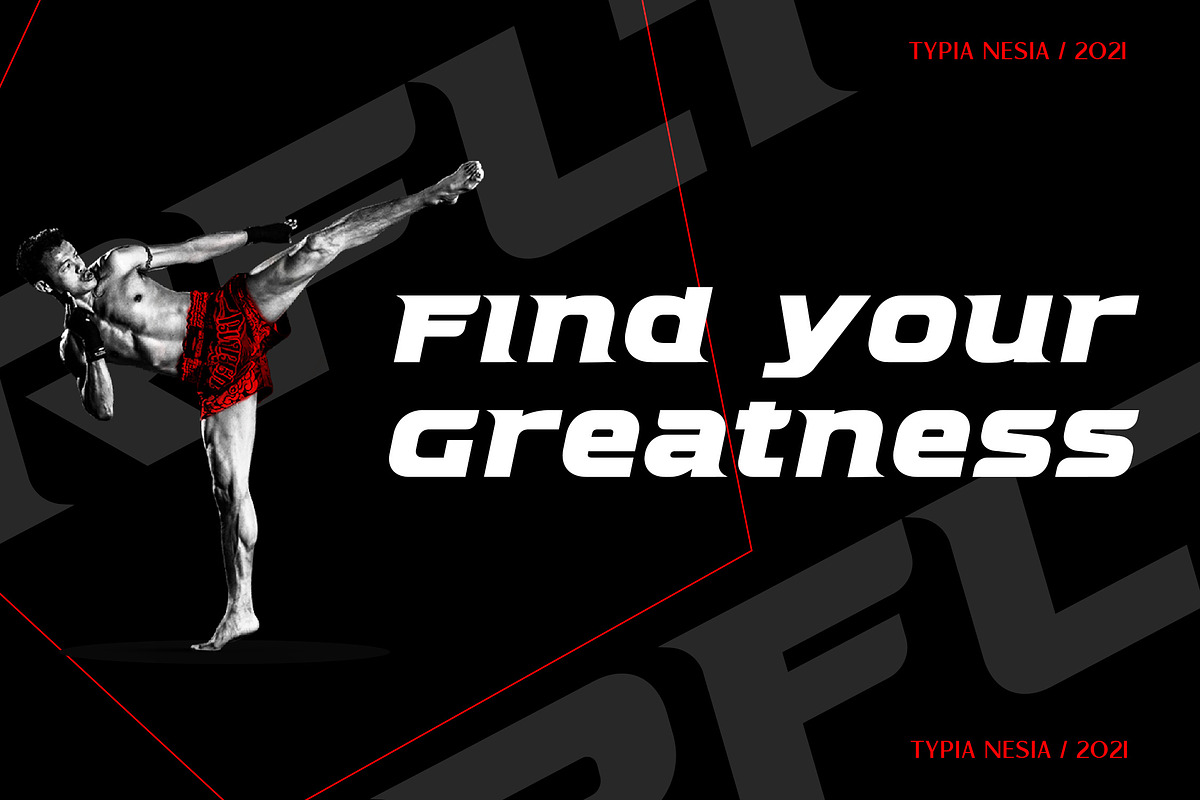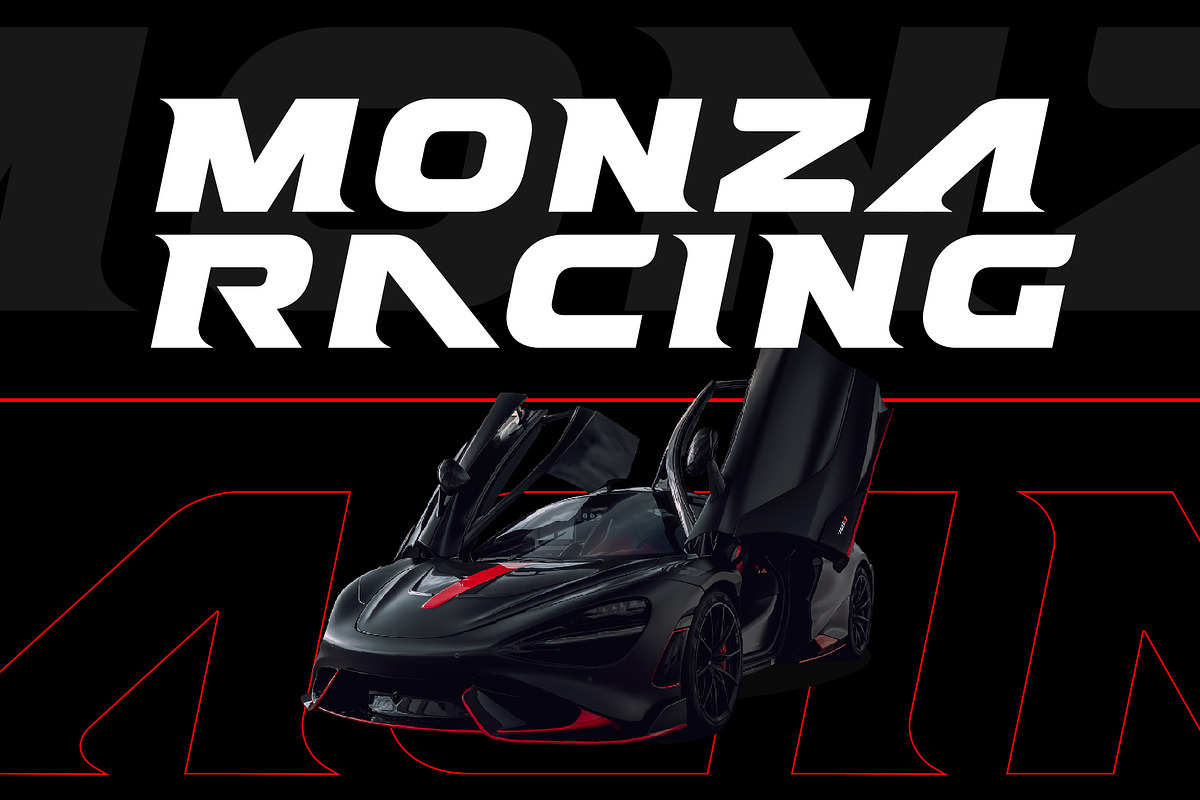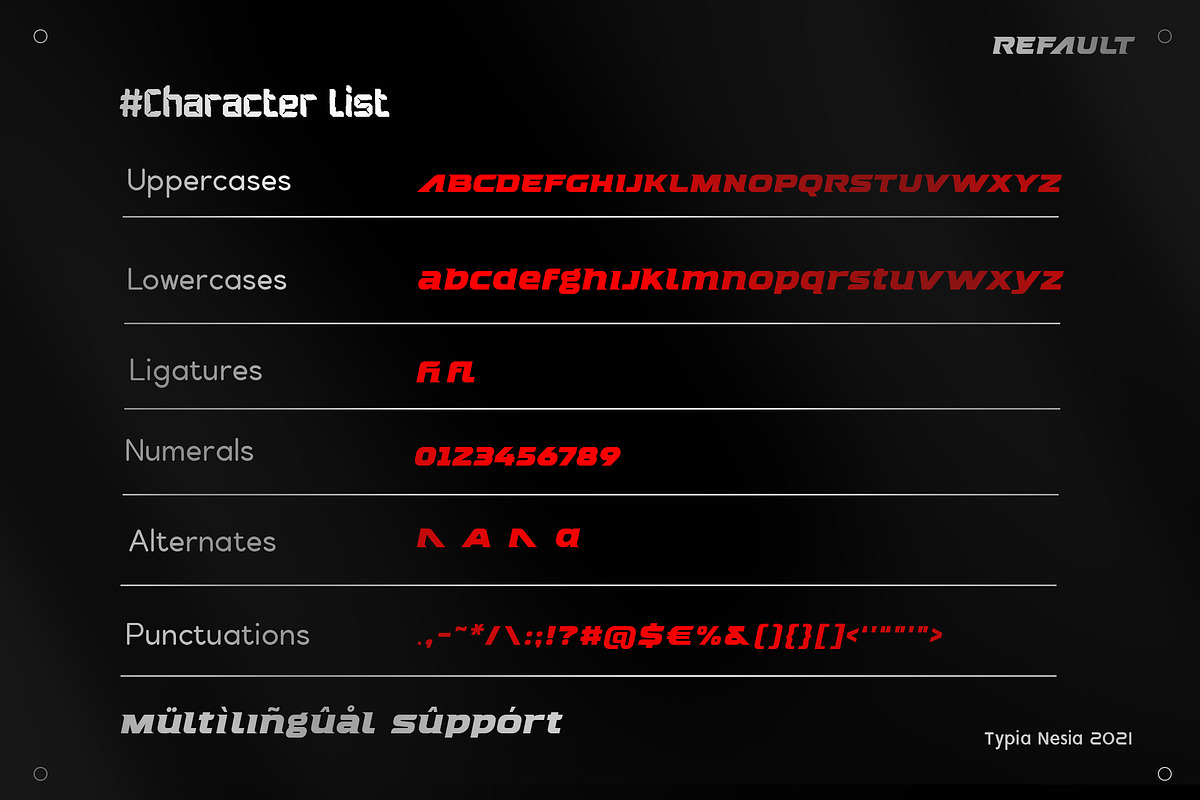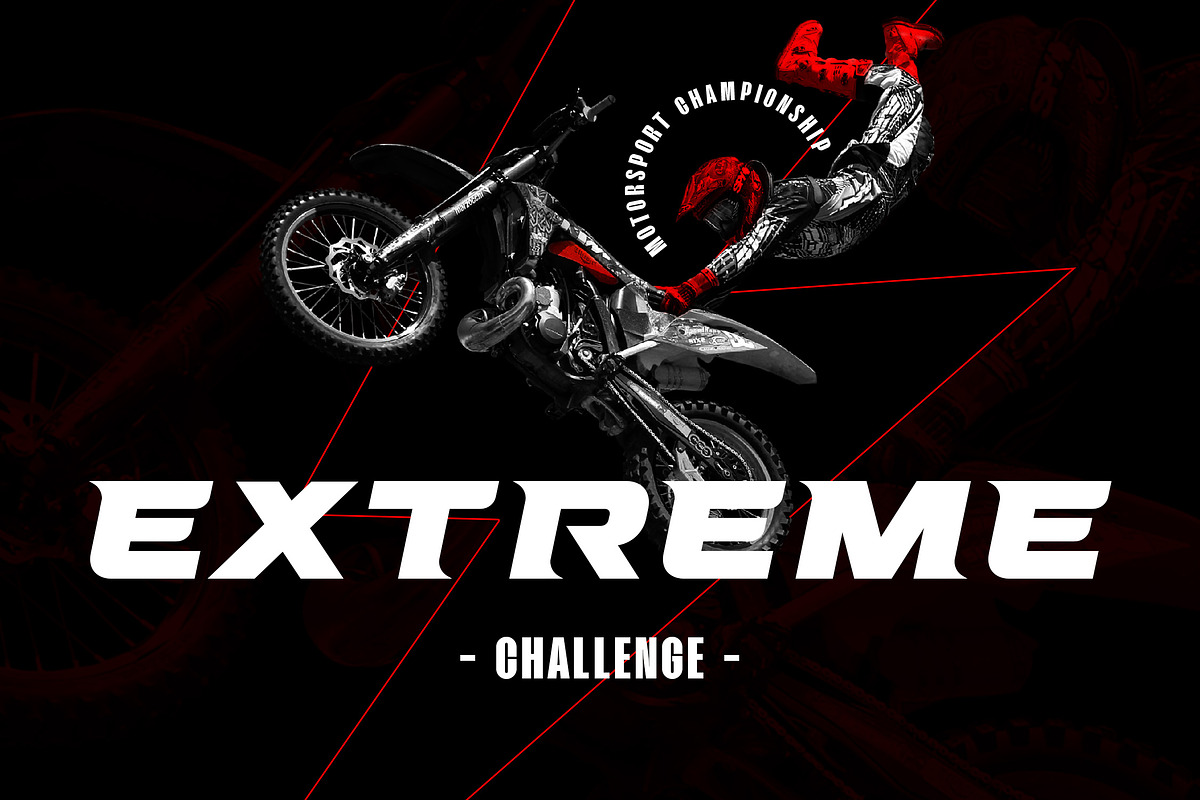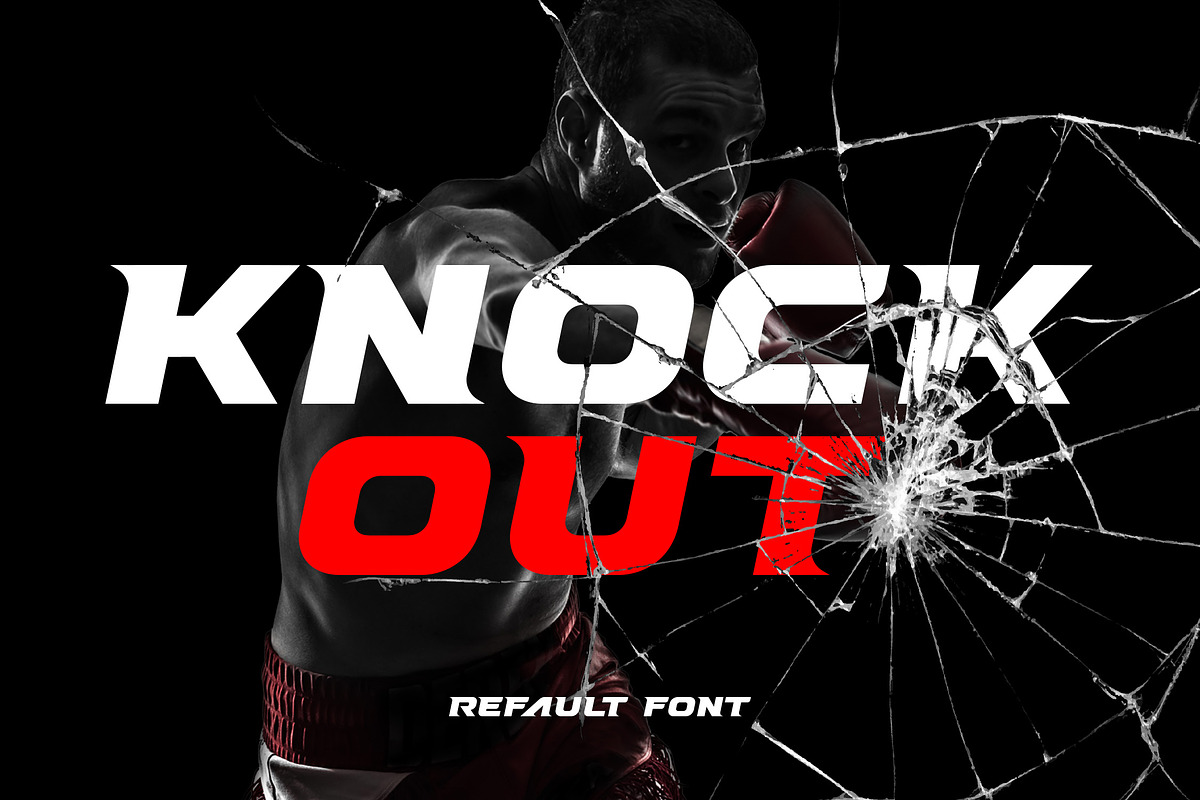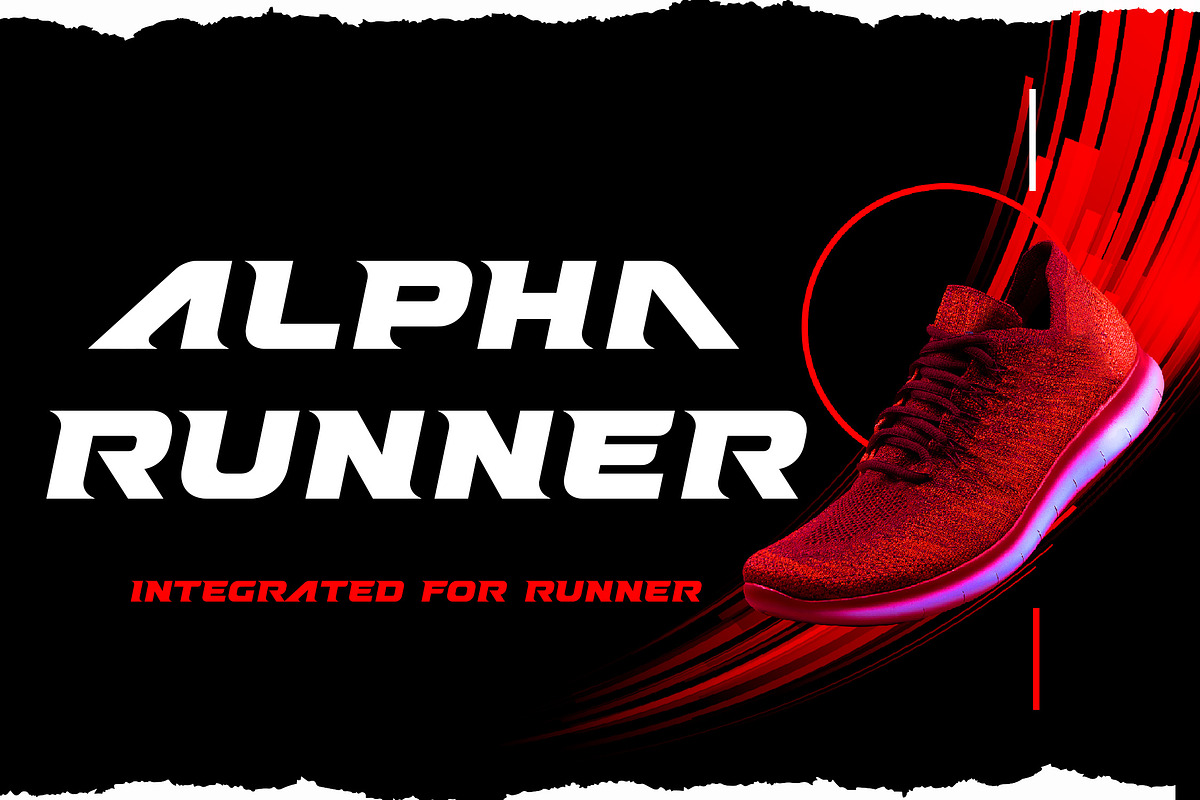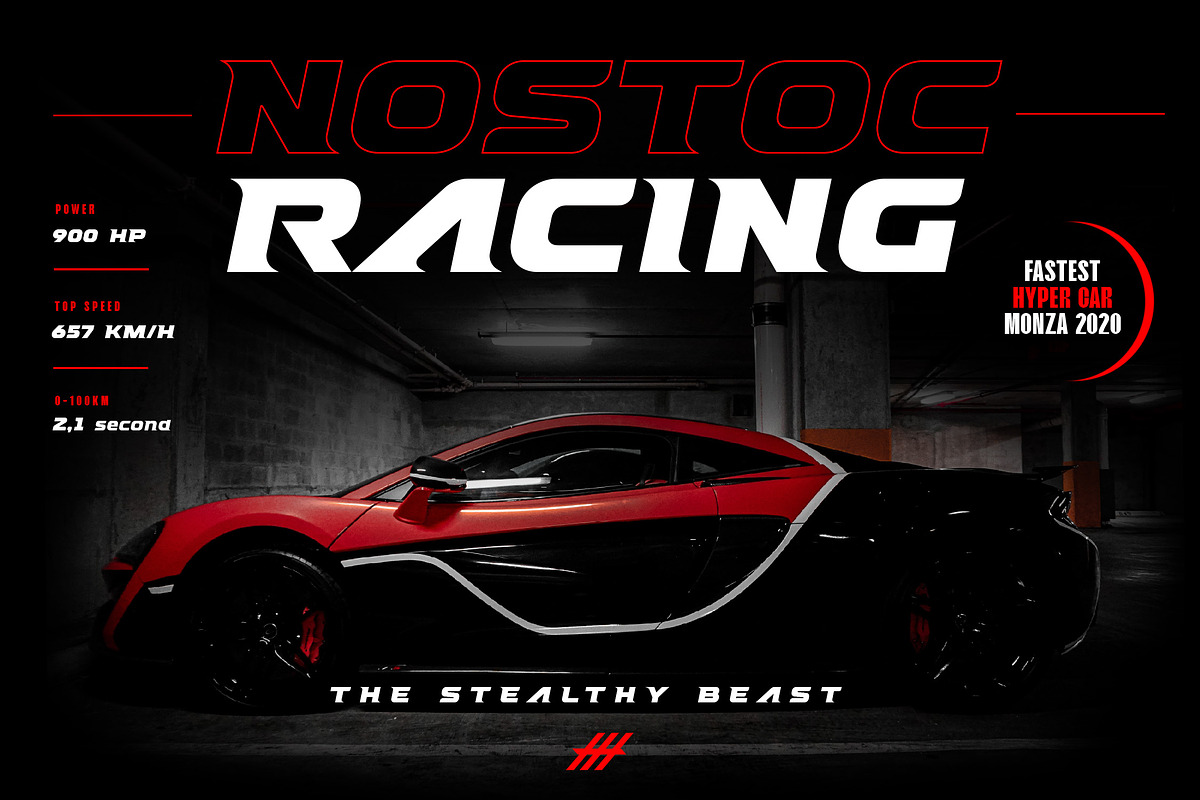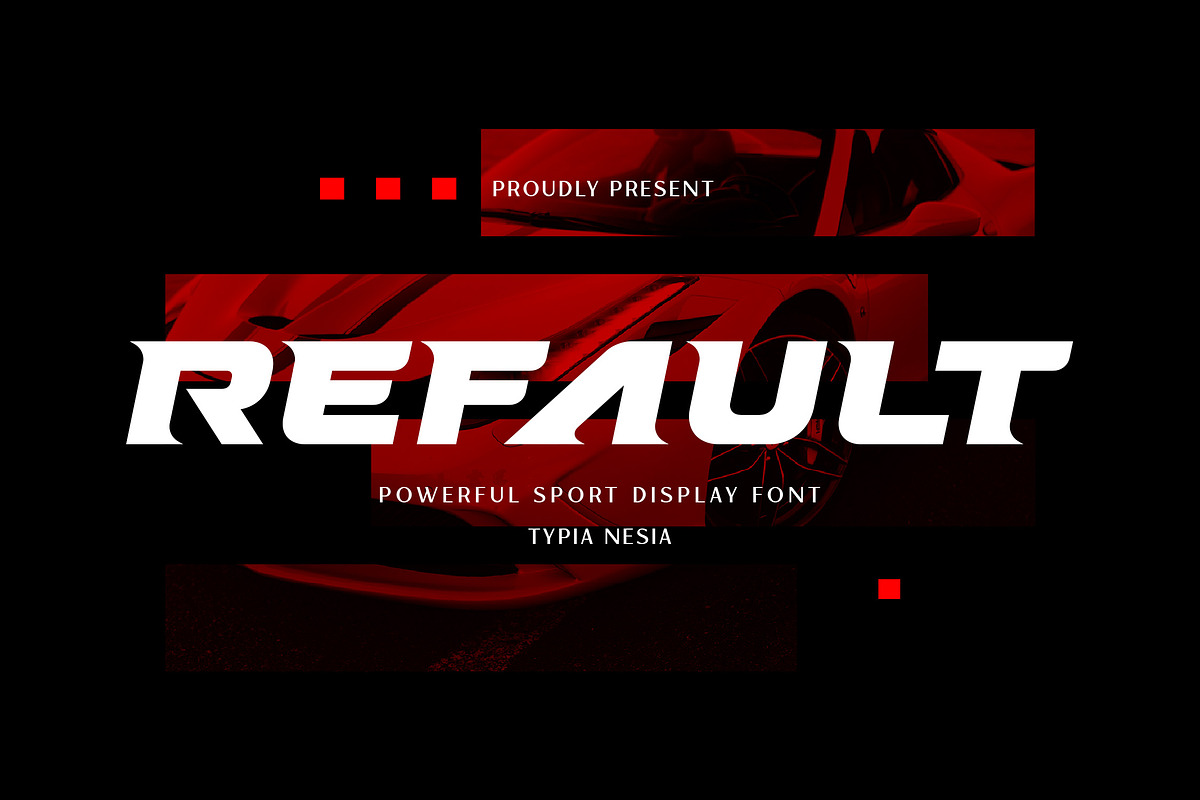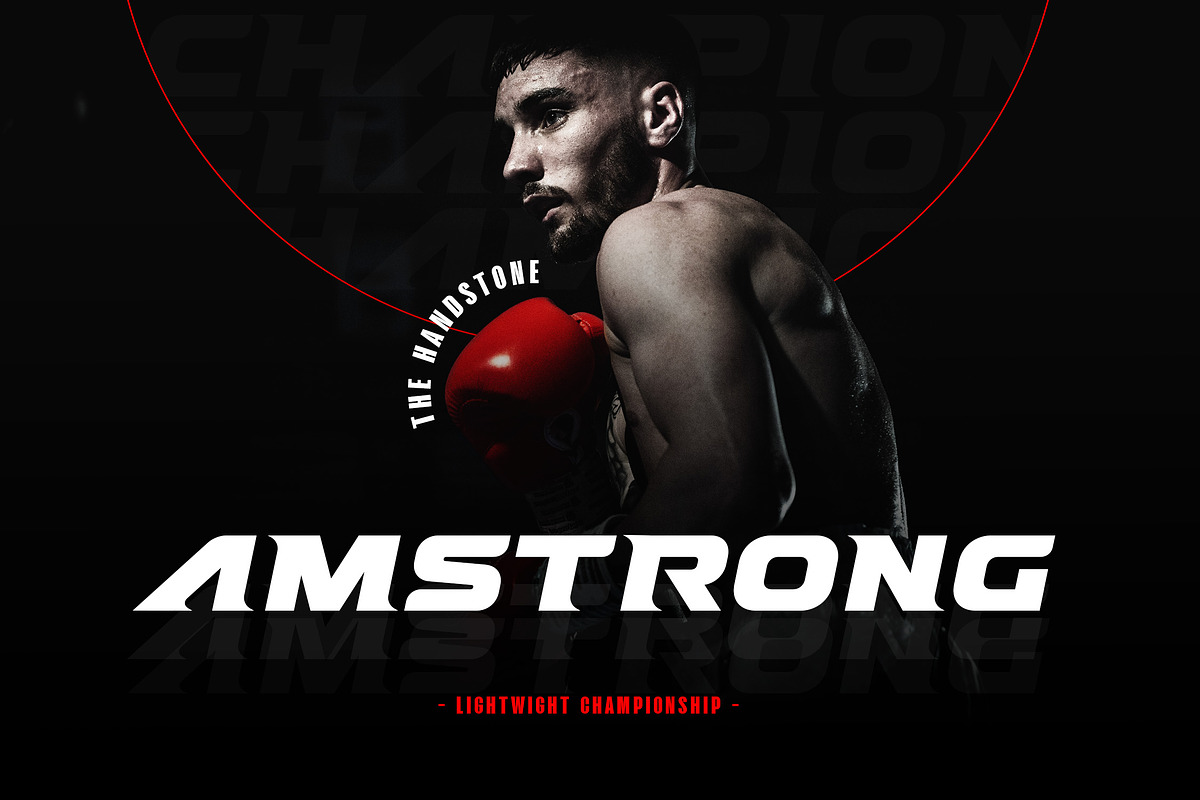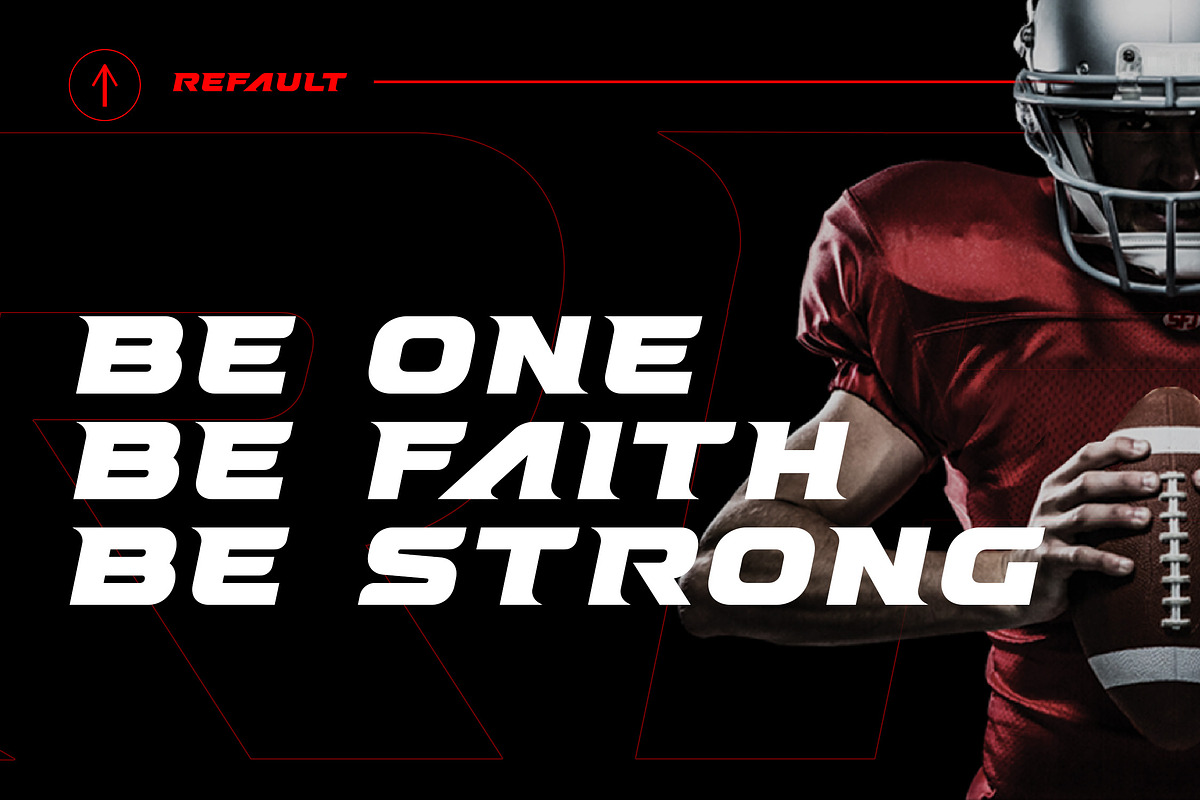
Refault
Refault - Sport Super Car Font - Racing Game Font - Bold Sans Serif Display Font
Refault Sport Game Sans Serif Display Font is perfect for your up coming projects. Such as logo branding, editorial design, esport design, 80s retro design, game / gaming industry, sport racing, super car brand, esport branding, music poster, website design, modern advertising design, poster quote, book/cover title, special events and any more.